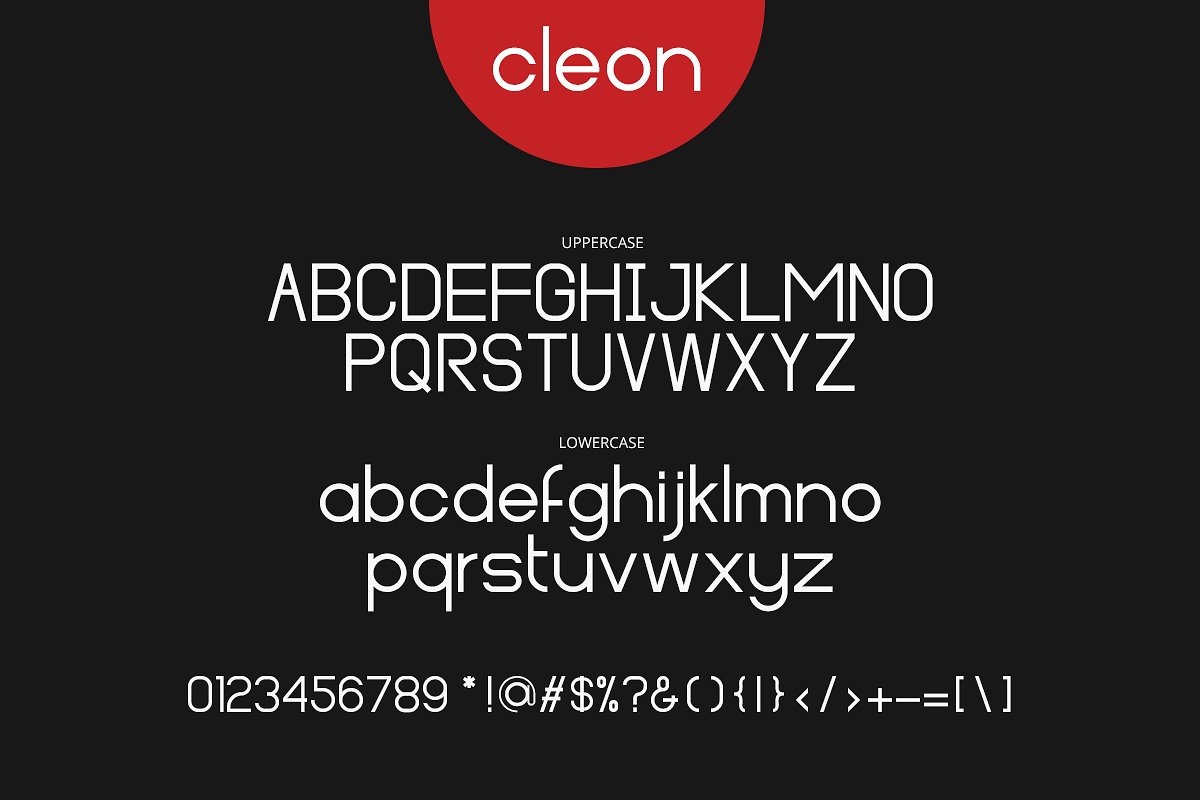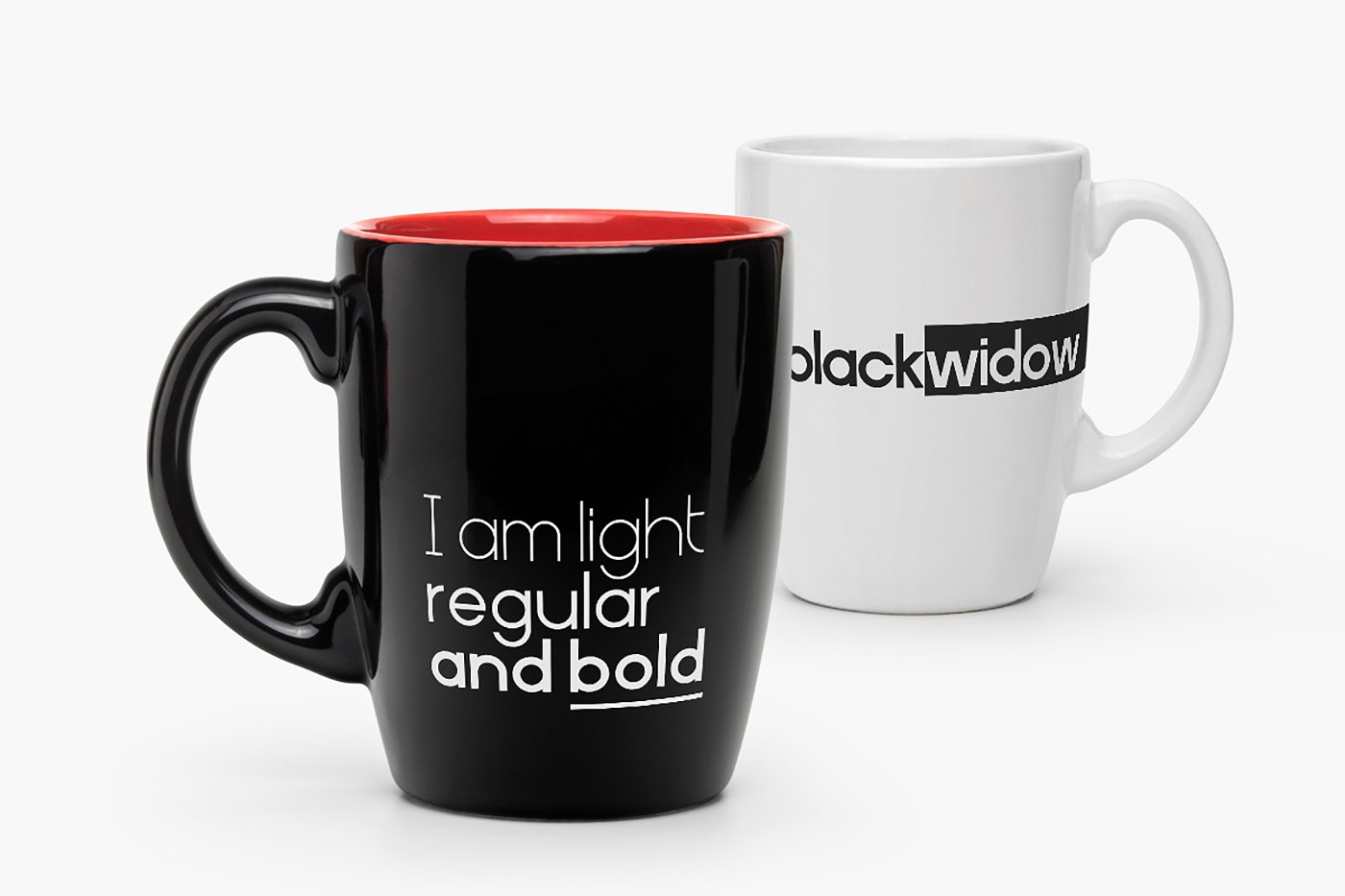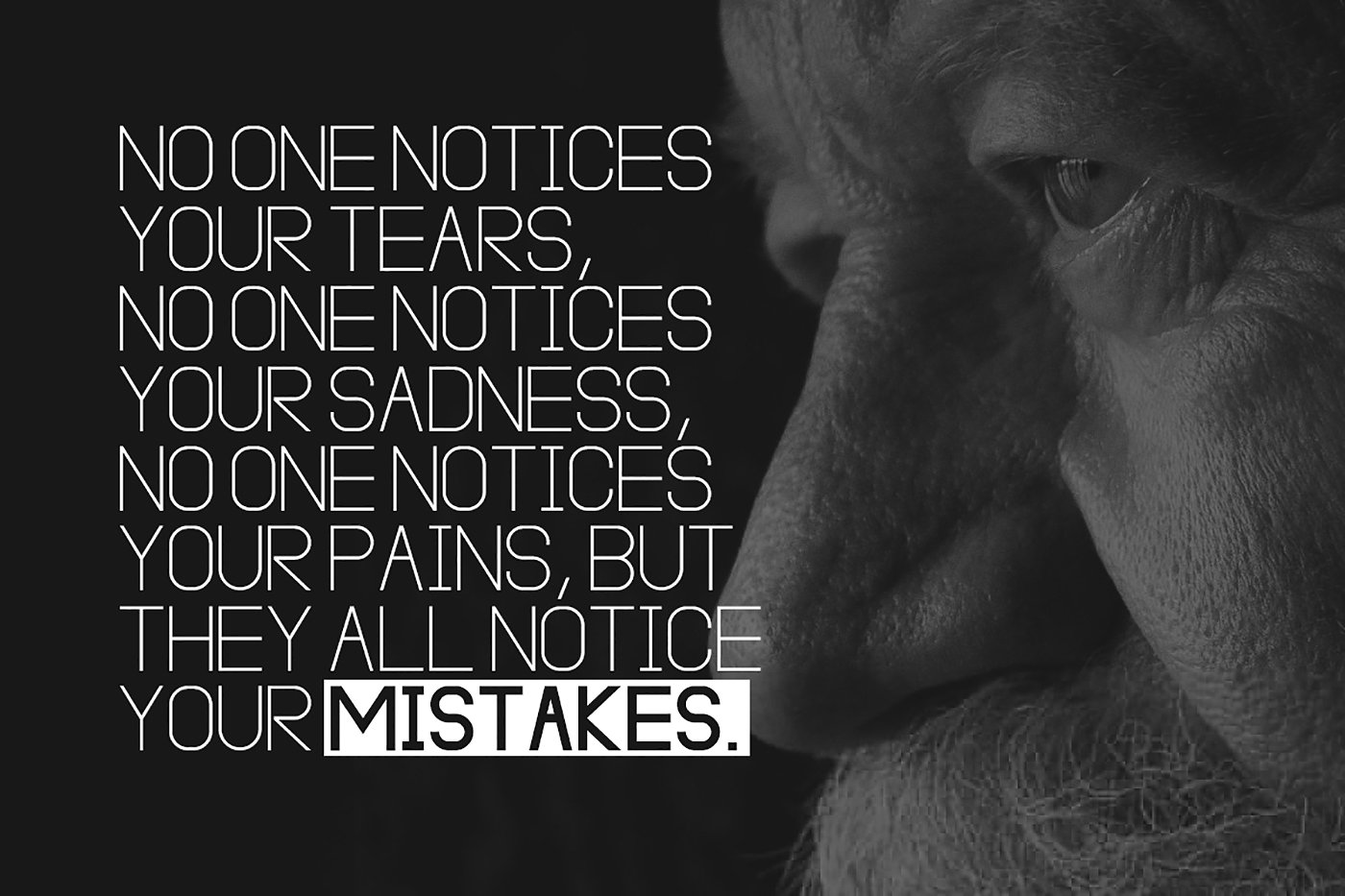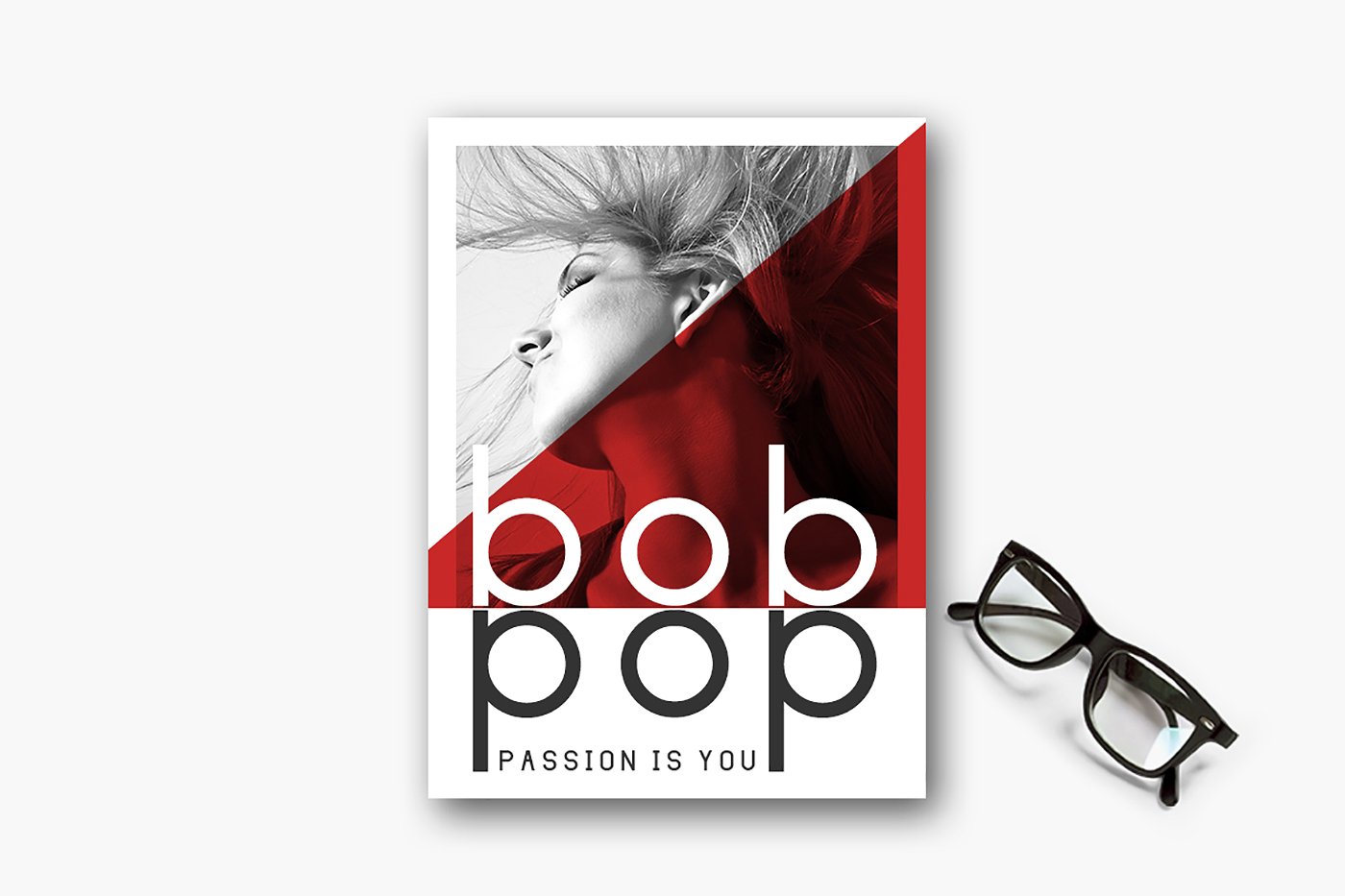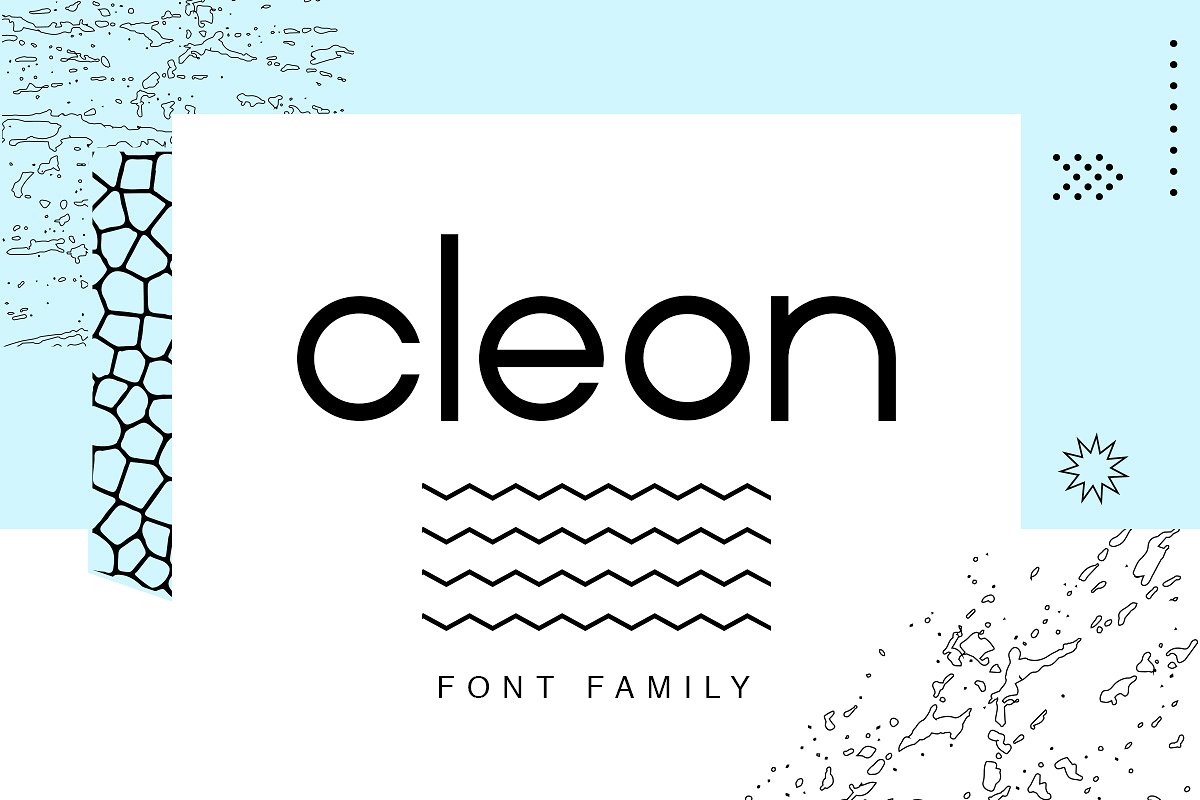
Cleon Font Family
Cleon Font Family – Free Demo
Introducing Cleon! It is designed and shared by Factory738. Cleon – a new beautiful sans serif typeface that applicable for any type of graphic design: web, print, motion graphics etc and perfect for poster and other items like t-shirts, logos. It comes with upper and lowercase characters within the 3 fonts ( regular, light, and bold version).